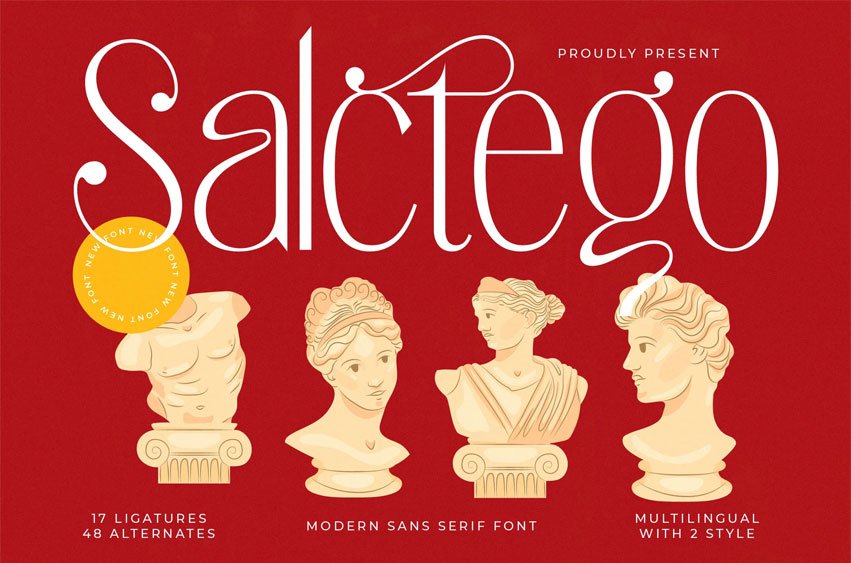
Salctego Font is a refined modern serif font with elegant high-contrast strokes, sculptural curves, and art-driven ligatures inspired by classical Roman and Greek aesthetics.
Making it perfect for luxury branding, editorial layouts, perfume packaging, museum identities, timeless logos, and upscale invitations that demand a sophisticated historical touch wrapped in a clean contemporary form.